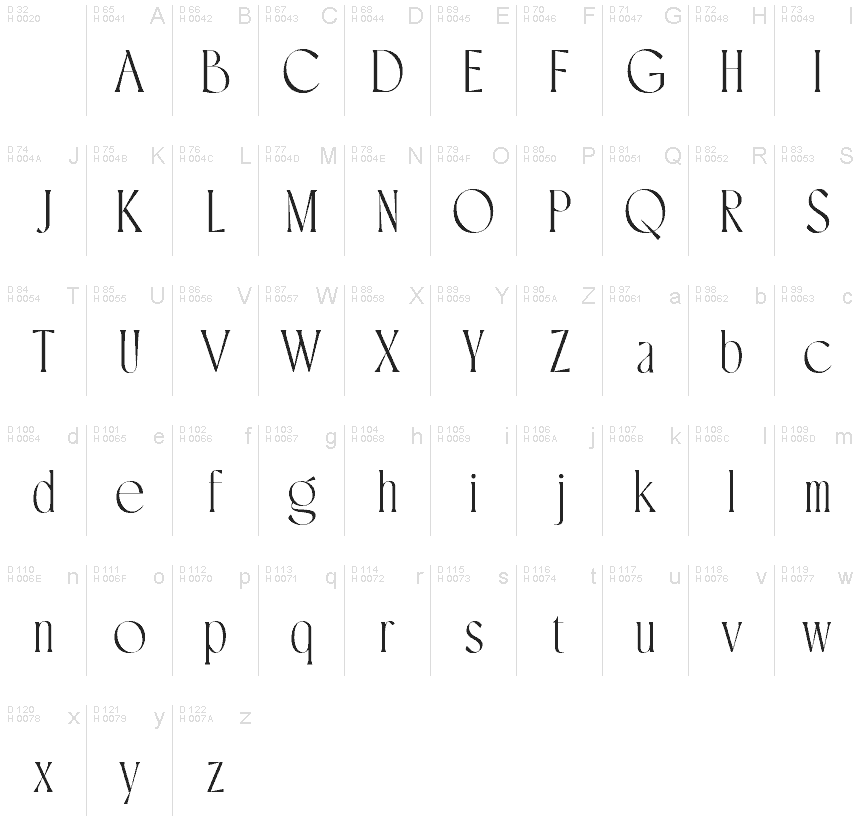
CS Century Regular Demo
CS Century font by Craft Supply Co. is an elegant and refined serif font combining classic features with understated modern elements. Its light weight, smooth lines, and delicate details make it a sophisticated choice wherever timeless appeal is required.
Use this free serif font to create charming prints (business cards, stationery, calendars), decorate your website’s headlines, or create appealing magazine covers. Further use cases include packaging designs, ads, signage projects, novels/books covers and interiors (page body/headers), posters and more.